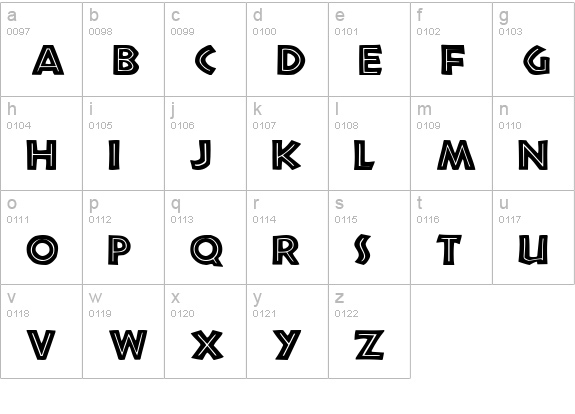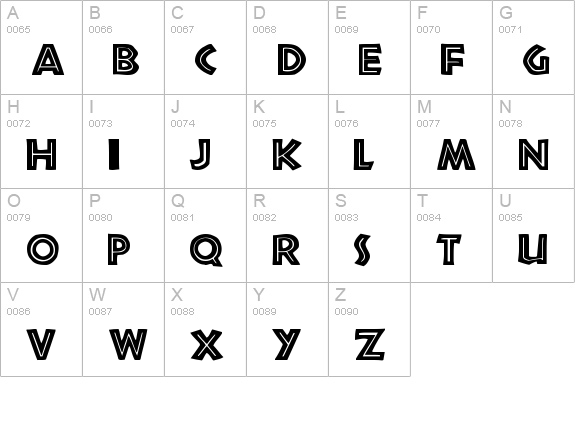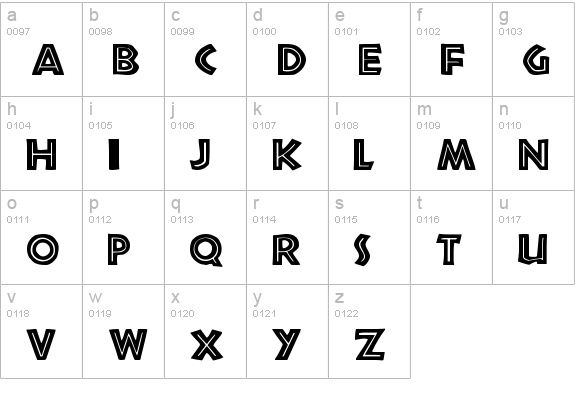
Tribeca Medium is a balanced, medium-weight variant in the Tribeca typeface family \xE2\x80\x94 well suited to sub-headlines, navigation, and balanced editorial work.
Tribeca Medium is a versatile and modern font that effortlessly combines elegance with a touch of playfulness. This font is perfect for a wide range of design projects, from branding and logo design to web graphics and print materials. With its clean lines and balanced letterforms, Tribeca Medium exudes a sense of sophistication and professionalism. The medium weight adds just the right amount of weight and presence to your text, making it easily readable and highly legible. One of the best things about Tribeca Medium is that it is freely available to download at FontsMarket.com. This means that you can easily access this remarkable font without any cost, making it an ideal choice for both personal and commercial projects. Whether you are designing a chic and modern website, creating eye-catching social media graphics, or crafting a stunning brochure, Tribeca Medium will elevate your design to new heights. Its versatility and timeless appeal make it a must-have font for any designer's toolkit. So, don't miss out on the opportunity to enhance your design projects with Tribeca Medium. Download it for free today at FontsMarket.com and experience the power and beauty of this exceptional font.